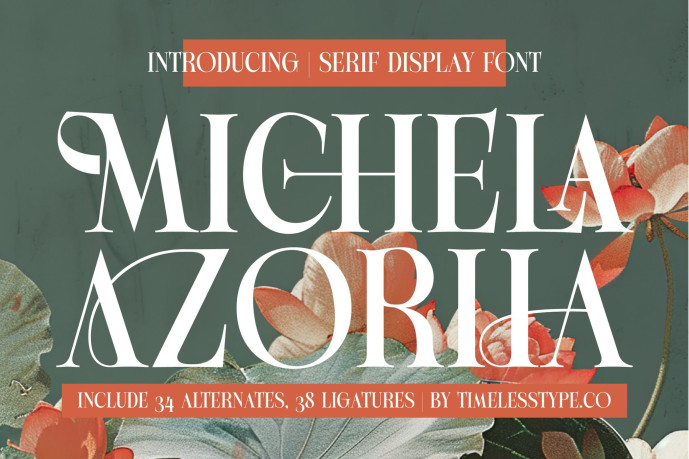
Michela Azorha Font is a refined serif display font that captures elegance through its tall contrast strokes and artistic detailing. Featuring 38 ligatures and 34 alternates, it offers endless versatility for editorial designs, luxury branding, wedding invitations, and modern packaging. Michela Azorha balances sophistication and creativity, giving your typography , high-end perfect for both print and digital media.